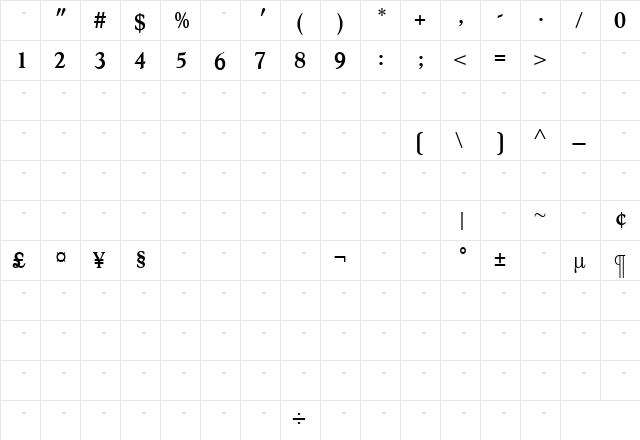
HessOSMedTab Regular Font Preview
HessOSMedTab Regular
Design Context for HessOSMedTab Typeface
HessOSMedTab takes a measured approach to typography — its balanced proportions and neutral character make it a reliable workhorse for both digital and print work.
Pro Tip: Use HessOSMedTab in both headline and body roles to test its range before committing to a single application.